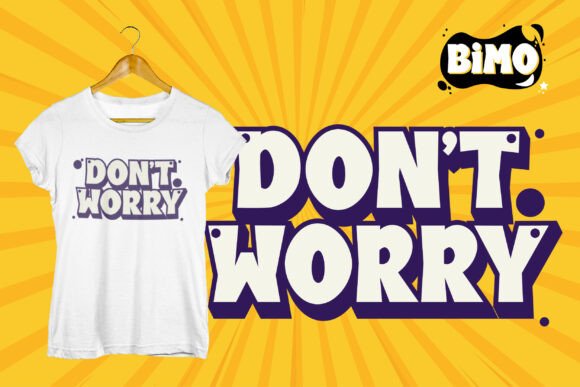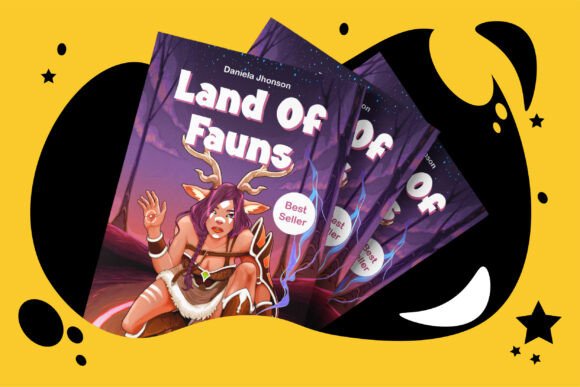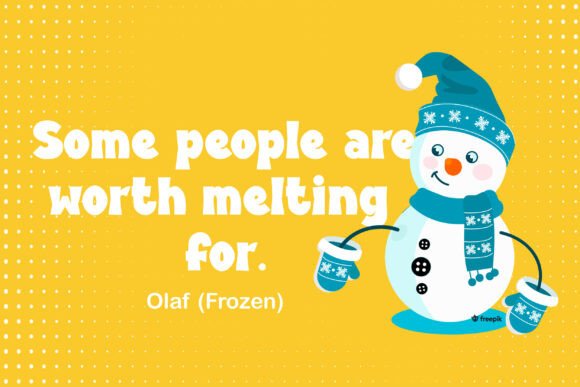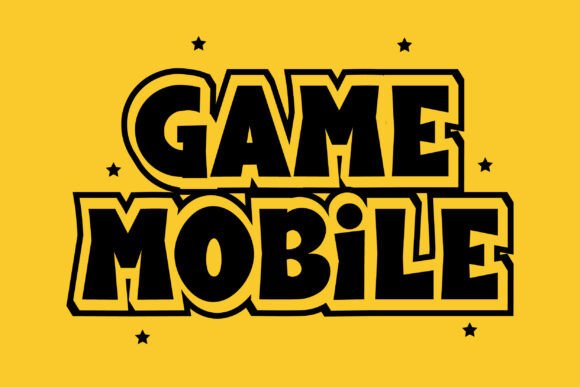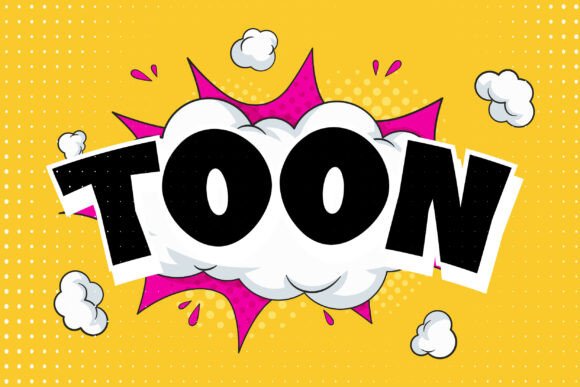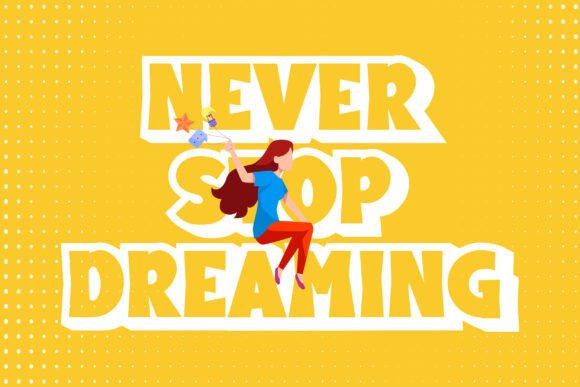
Introducing Bimo Toon: The Ultimate Cartoon-Style Display Font for Creative Masterpieces
Are you tired of using the same old fonts for your design projects? Look no further! Bimo Toon is here to revolutionize the way you create, with its unique cartoon-style display font that exudes charm and playfulness. This captivating typeface is designed to elevate your design creations to a new level, making it perfect for designers, crafters, and anyone looking to add a touch of whimsy to their work.
The Power of Bimo Toon
Bimo Toon’s authoritative characters, combined with its captivating aesthetic, make it the perfect choice for a wide range of design projects. Whether you’re creating funny memes, crafting engaging comic titles, or designing superhero costumes, this playful font is your best friend. Its transformational power will take your work from ordinary to extraordinary, ensuring that your creations always get the spotlight they deserve.
With Bimo Toon, the possibilities are endless. Use it to:
- Create hilarious memes that will leave your audience in stitches
- Craft engaging comic titles that will grab attention and draw readers in
- Design superhero costumes that will make your characters stand out
- Add a touch of whimsy to your social media quotes and make them shine
- Develop unforgettable slogans that will leave a lasting impression
What Makes Bimo Toon Special?
Bimo Toon pushes the boundaries of playfulness and originality online, making it the perfect choice for designers and crafters who want to stand out from the crowd. Its unique cartoon-style design is both charming and captivating, ensuring that your work will be noticed and remembered.
Bring Your Creativity to Life with Bimo Toon
Whether you’re a seasoned designer or a crafty DIY enthusiast, Bimo Toon is the perfect tool to bring your creativity to life. Its versatility and charm make it suitable for a wide range of projects, from digital designs to print materials.
Key Features of Bimo Toon
- Unique cartoon-style display font
- Authoritative characters with a playful twist
- Captivating aesthetic that grabs attention
- Perfect for funny memes, comic titles, superhero costumes, and social media quotes
- Endless creative possibilities
Get Ready to Elevate Your Designs with Bimo Toon
Don’t settle for ordinary fonts that fail to impress. With Bimo Toon, you can take your designs to new heights and create masterpieces that will leave a lasting impression. So why wait? Dive into your next creative endeavor with Bimo Toon and experience the transformational power of this amazing font for yourself.
In conclusion, Bimo Toon is a game-changing font that is sure to revolutionize the way you create. Its unique cartoon-style design, authoritative characters, and captivating aesthetic make it the perfect choice for designers, crafters, and anyone looking to add a touch of whimsy to their work. With Bimo Toon, you can bring your creativity to life, push the boundaries of playfulness and originality, and create unforgettable designs that will leave a lasting impression.